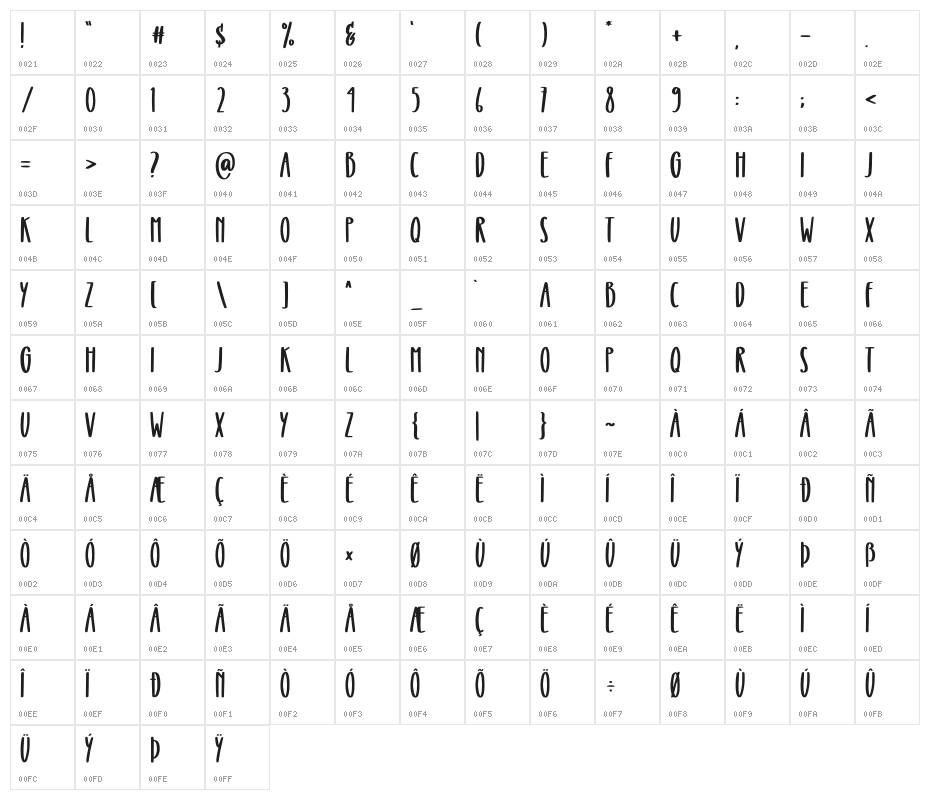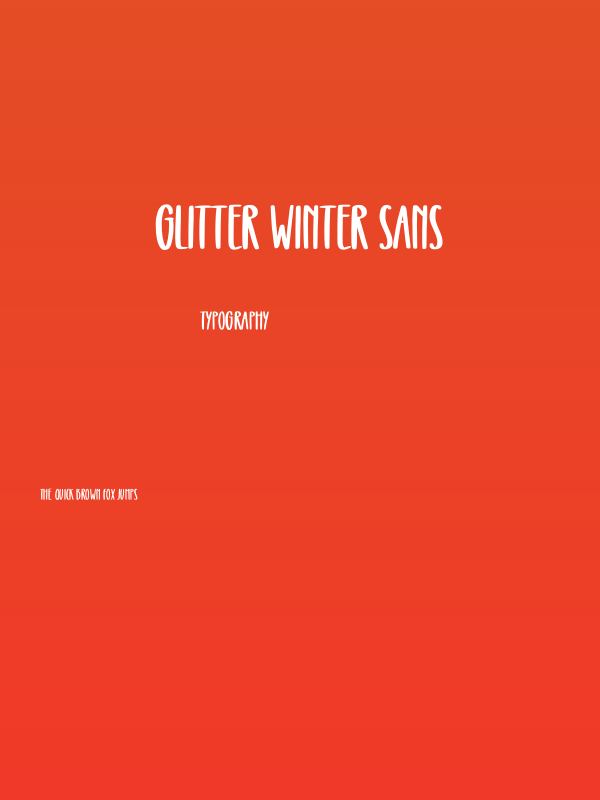
Glitter Winter Sans Font
Glitter Winter Sans Description
A playful, tall sans-serif font with rounded edges and a hand-drawn, whimsical appearance. The strokes are consistent in width, and the characters are slightly condensed with a casual, friendly feel.
| Overall Style | Playful, Whimsical, Modern |
| Use Case | Headlines, Logos, Posters, Invitations |
| Proposed Projects | Greeting cards, children's books, posters, invitations, branding for creative businesses. |